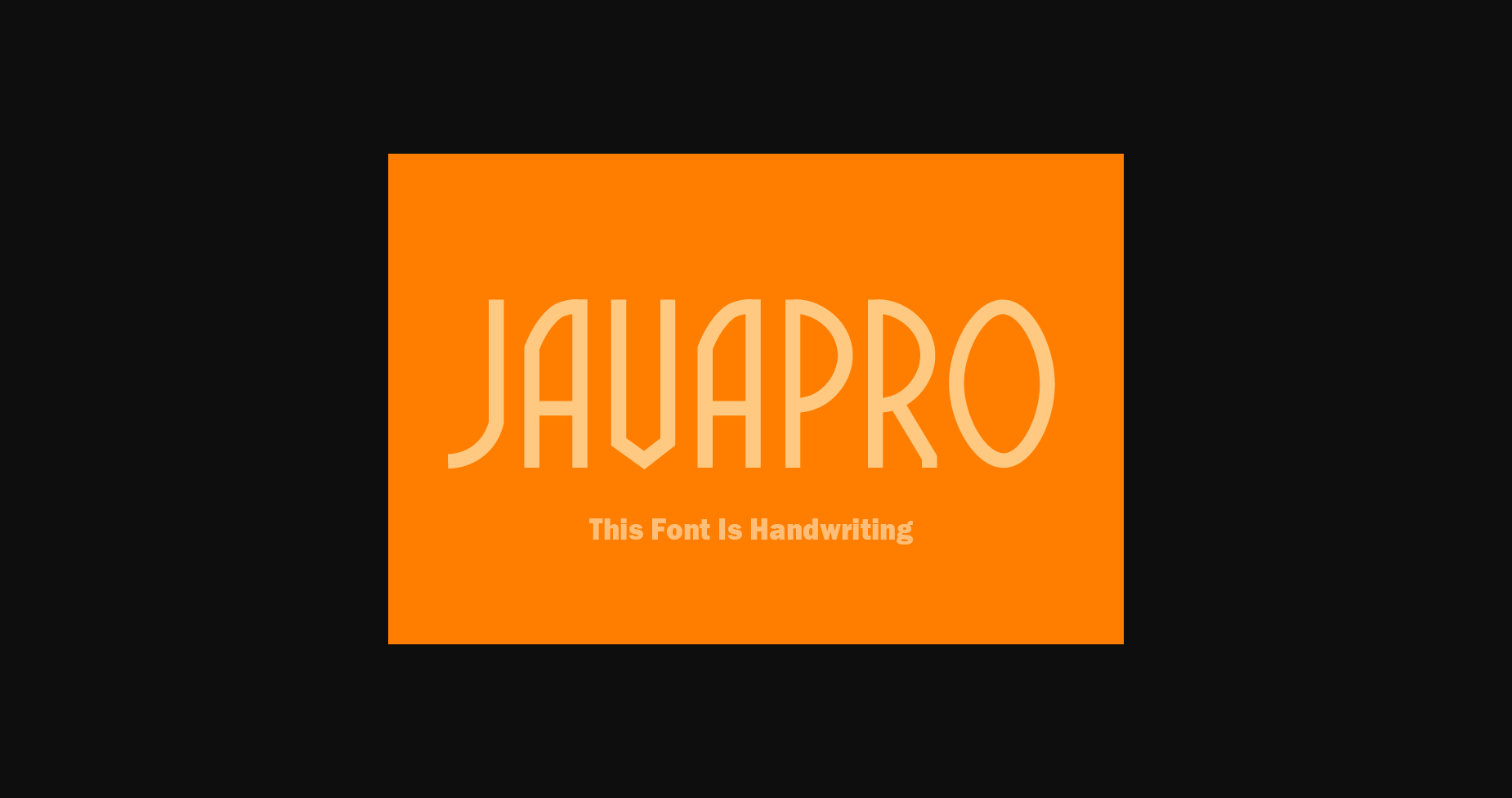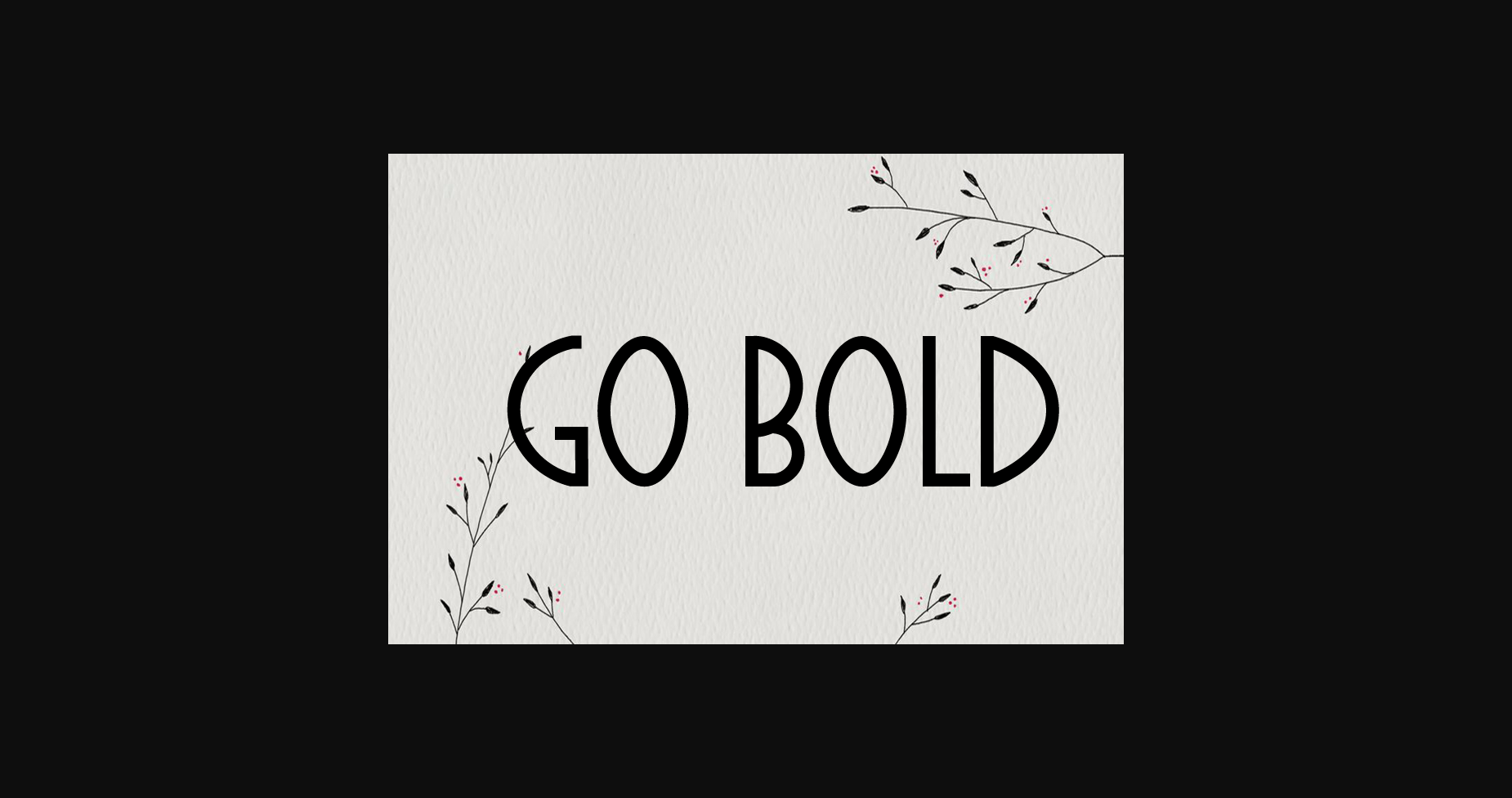
About Javapro Font
Javapro is a classic and simple sans serif font, created in a free and random style.
It is suitable for logotypes, headlines, corporate identity, brand identity, apparel industry, posters, music, movies, games, magazines, books, comics, cartoons, YouTube, Instagram, websites, or any of your creative design projects.